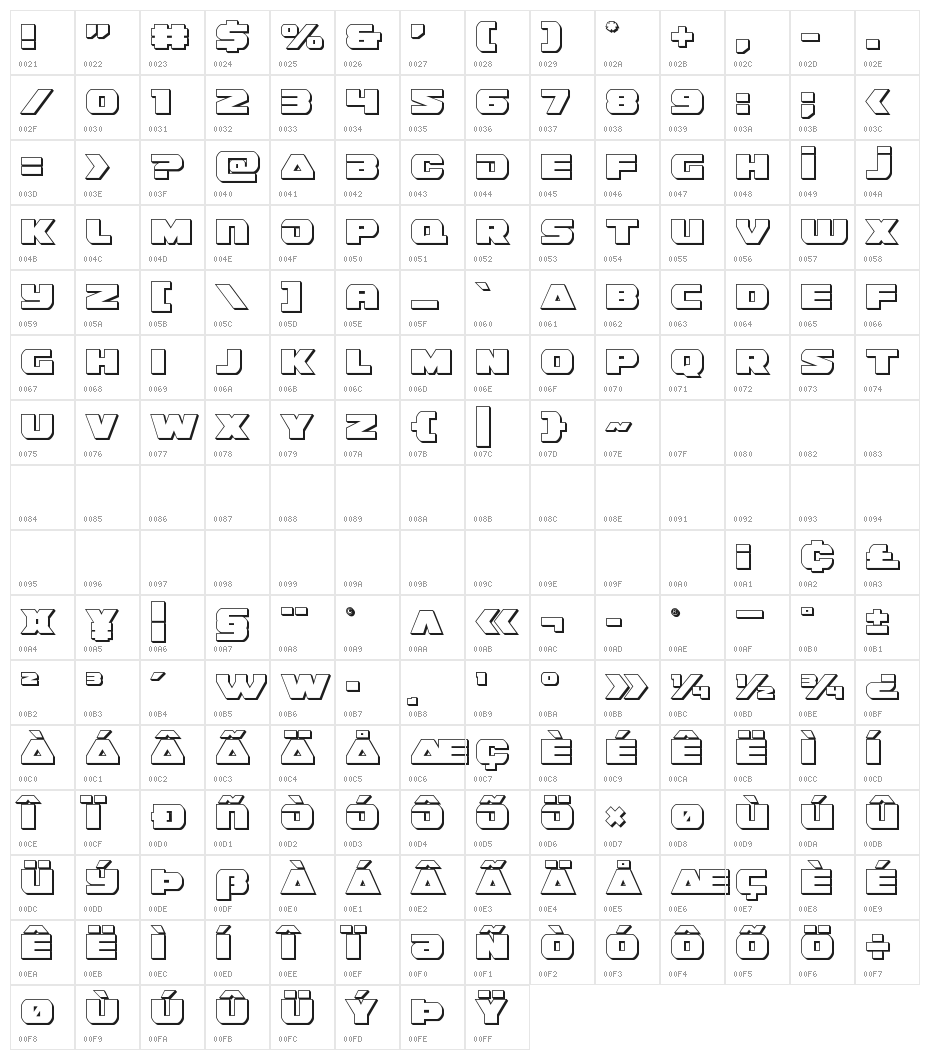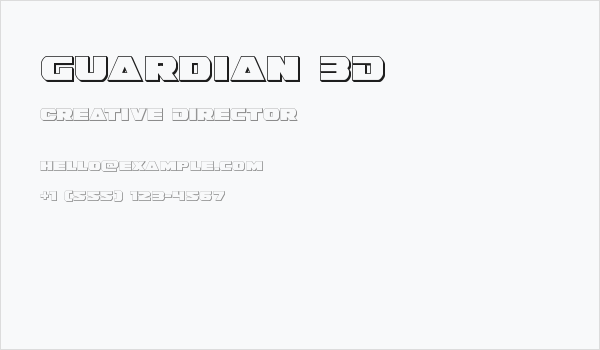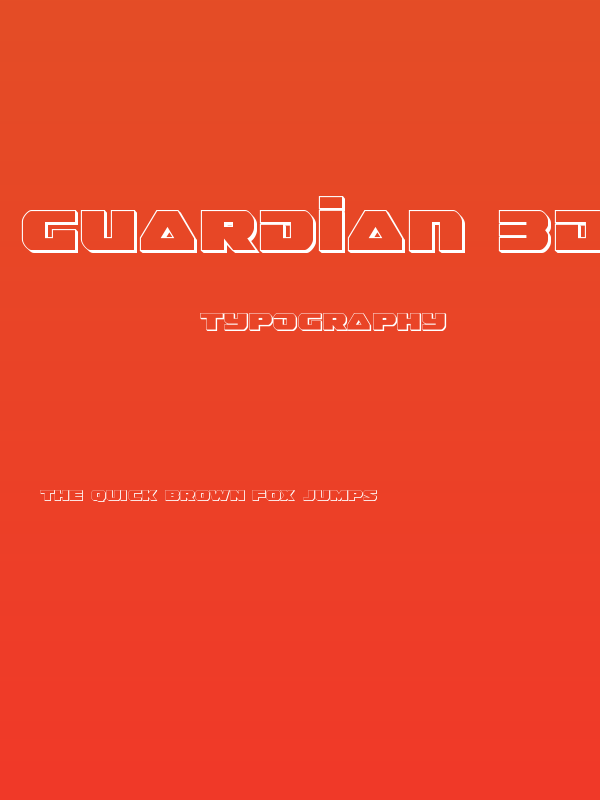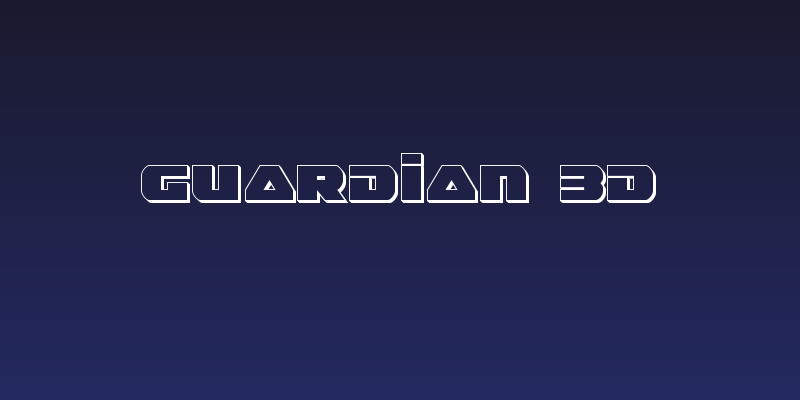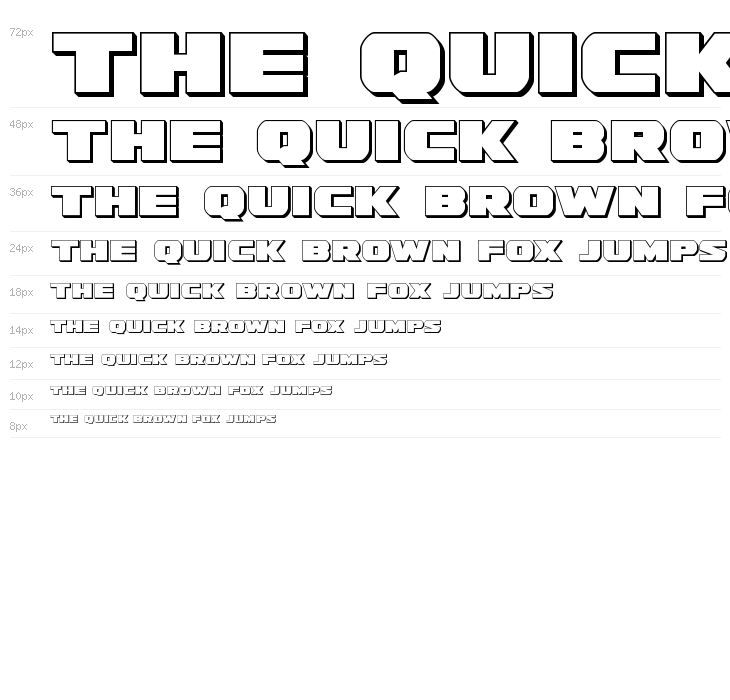
Guardian 3D Font
| Progetti proposti | Ideal for sci-fi themed projects, video game titles, posters, and branding that requires a modern and bold statement. |